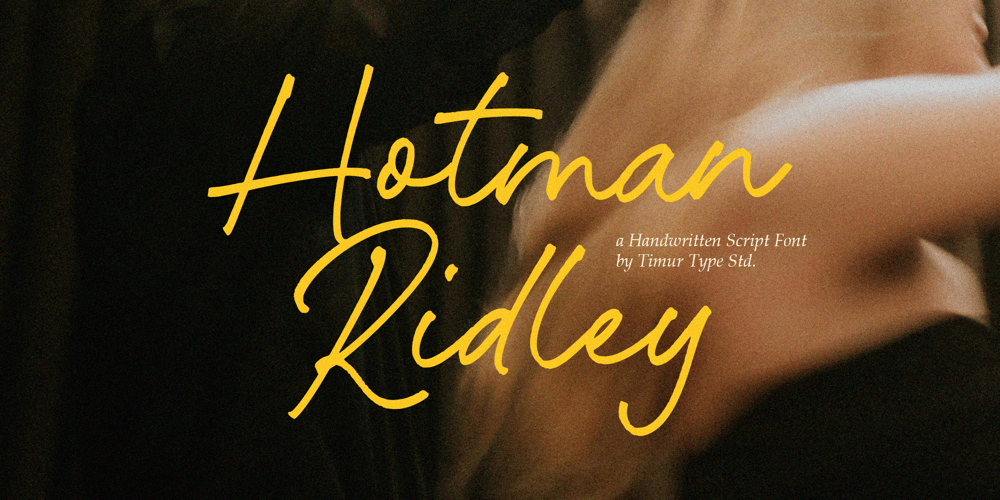
Hotman Ridley Font Family was designed by Wara Sigit Tri Pamungkas and published by Timurtype. Hotman Ridley contains 1 styles and family package options. Introduced by Timurtype Studio!Hotman Ridley is a Handwritten Script FontThis font is a captivating handwritten script font that exudes elegance. With its flowing, cursive strokes and artistic flair, it seamlessly blends classic sophistication with modern charm. Perfect for adding a touch of creativity to invitations, branding, and any projects, Hotman Ridley captures the essence of stylish handwritten notes, making your text stand out with a distinctive, refined touch.Hotman Ridley also supports multilingualismEnhance your designs with our original fonts, feel free to comment or provide feedback, Enjoy the fonts 😊Thank You